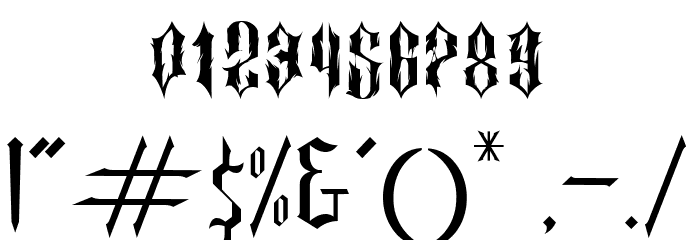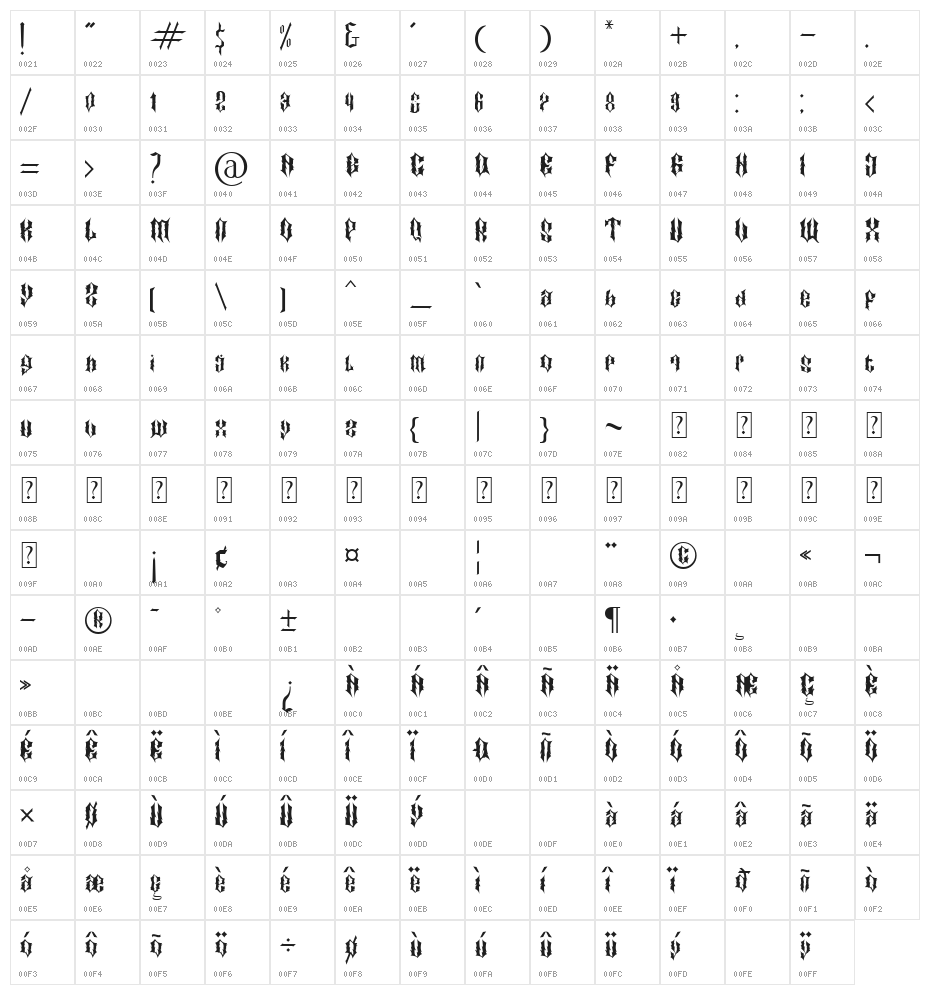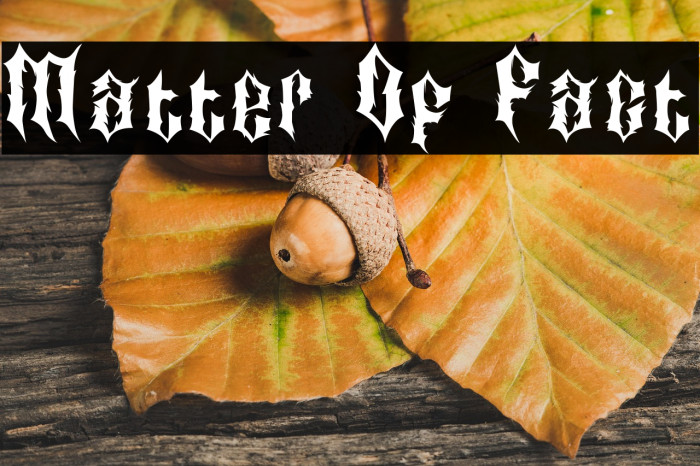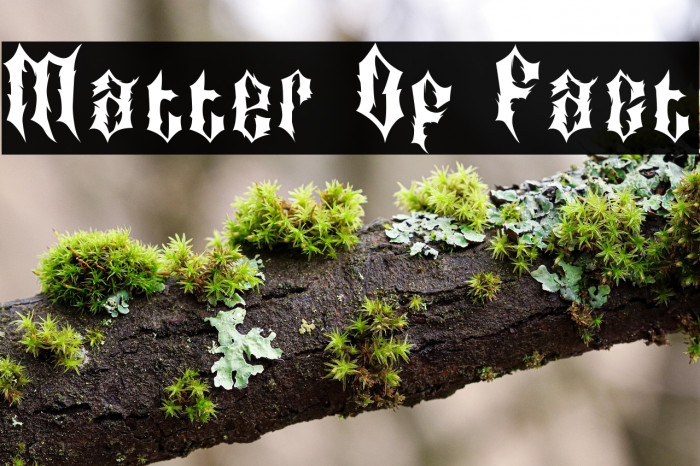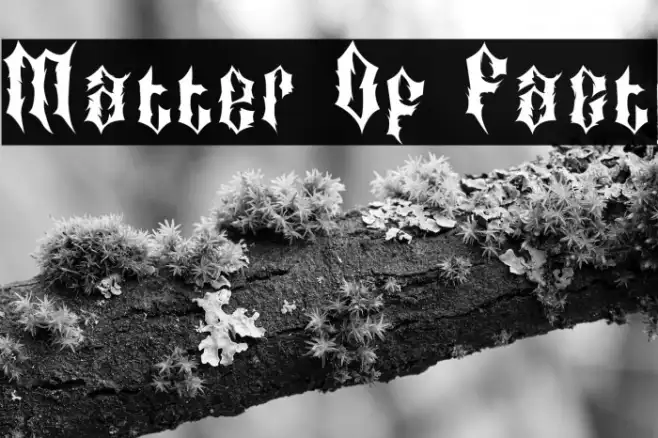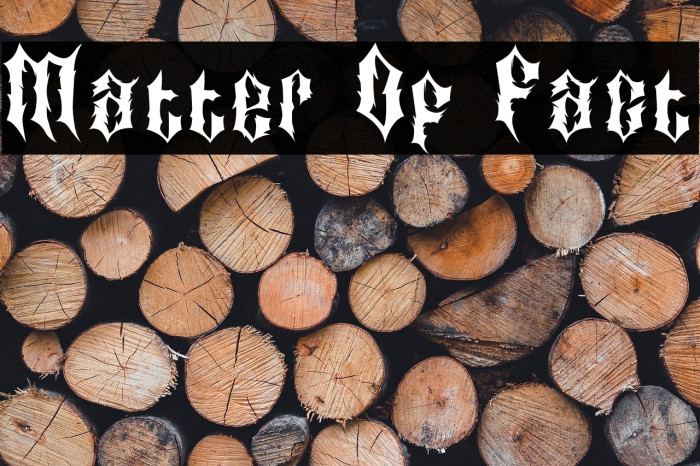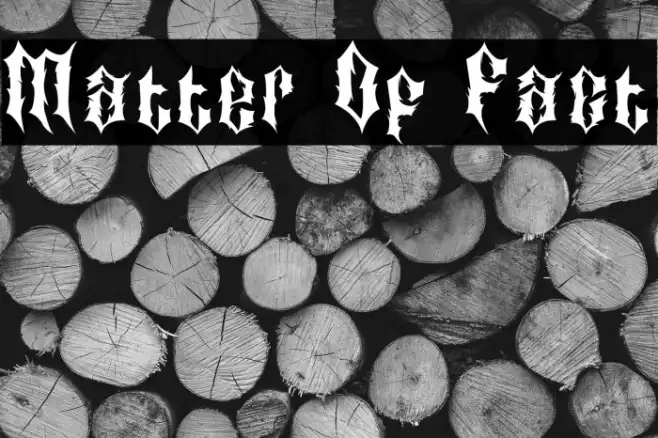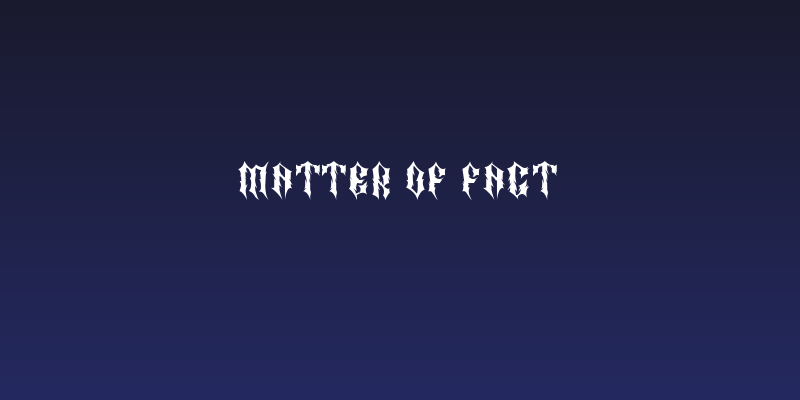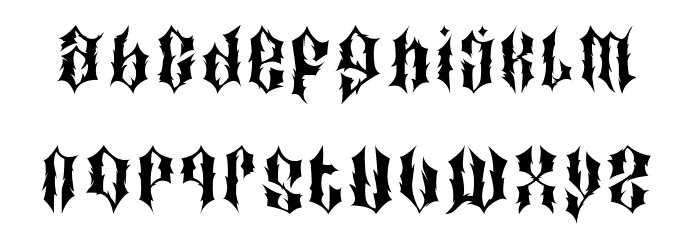
Matter Of Fact Font
Matter Of Fact Description
This font features a bold and striking design with sharp, angular edges and a gothic influence. Each character is intricately crafted with pointed serifs and dramatic strokes, creating a sense of intensity and power. The uppercase and lowercase letters maintain a consistent style, while the numerals and special characters complement the overall aesthetic. The font's unique appearance makes it ideal for projects that require a strong visual impact.
| Overall Style | Gothic, Decorative |
| Proposed Projects | Ideal for tattoo designs, band logos, posters, and any project requiring a bold, gothic aesthetic. |